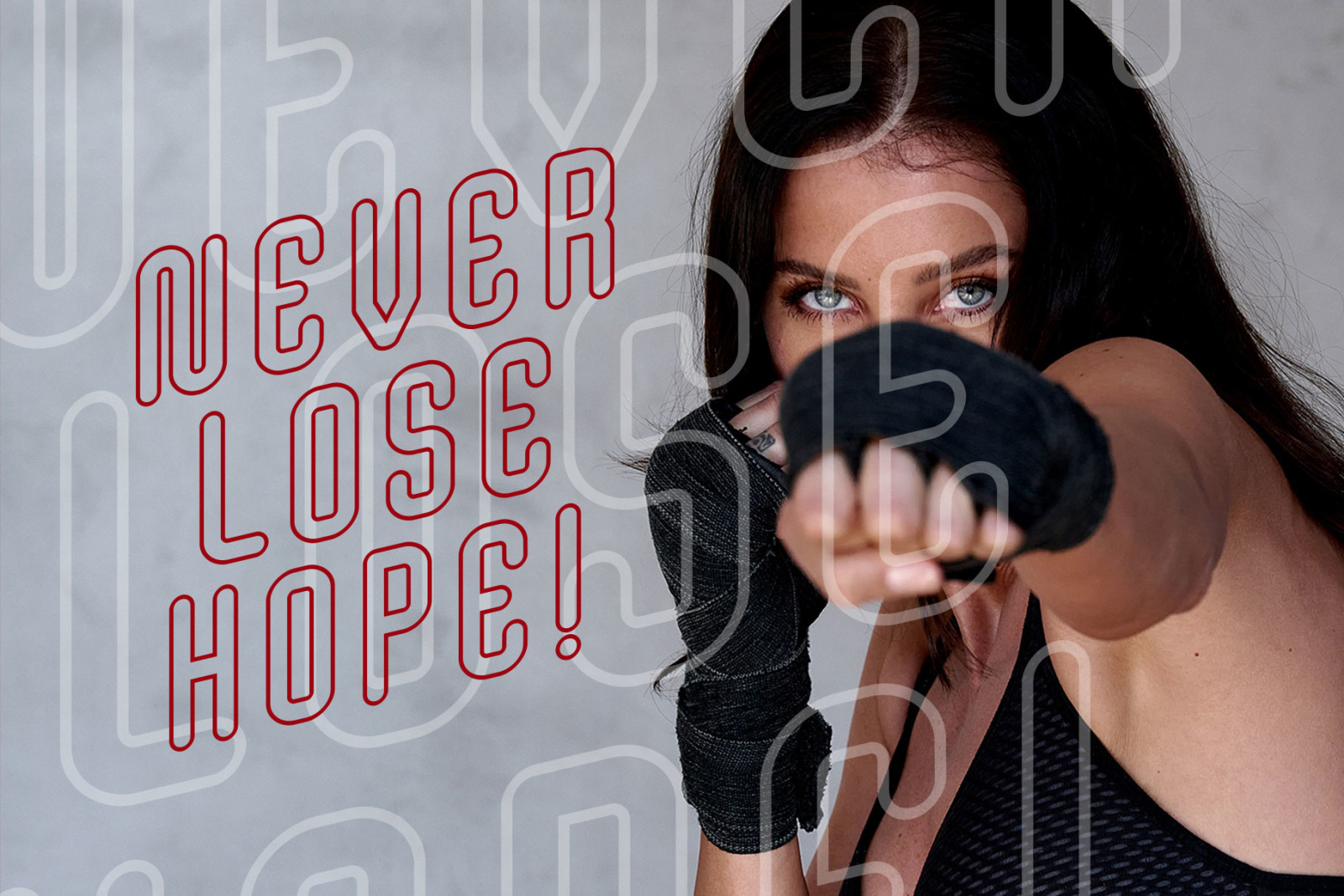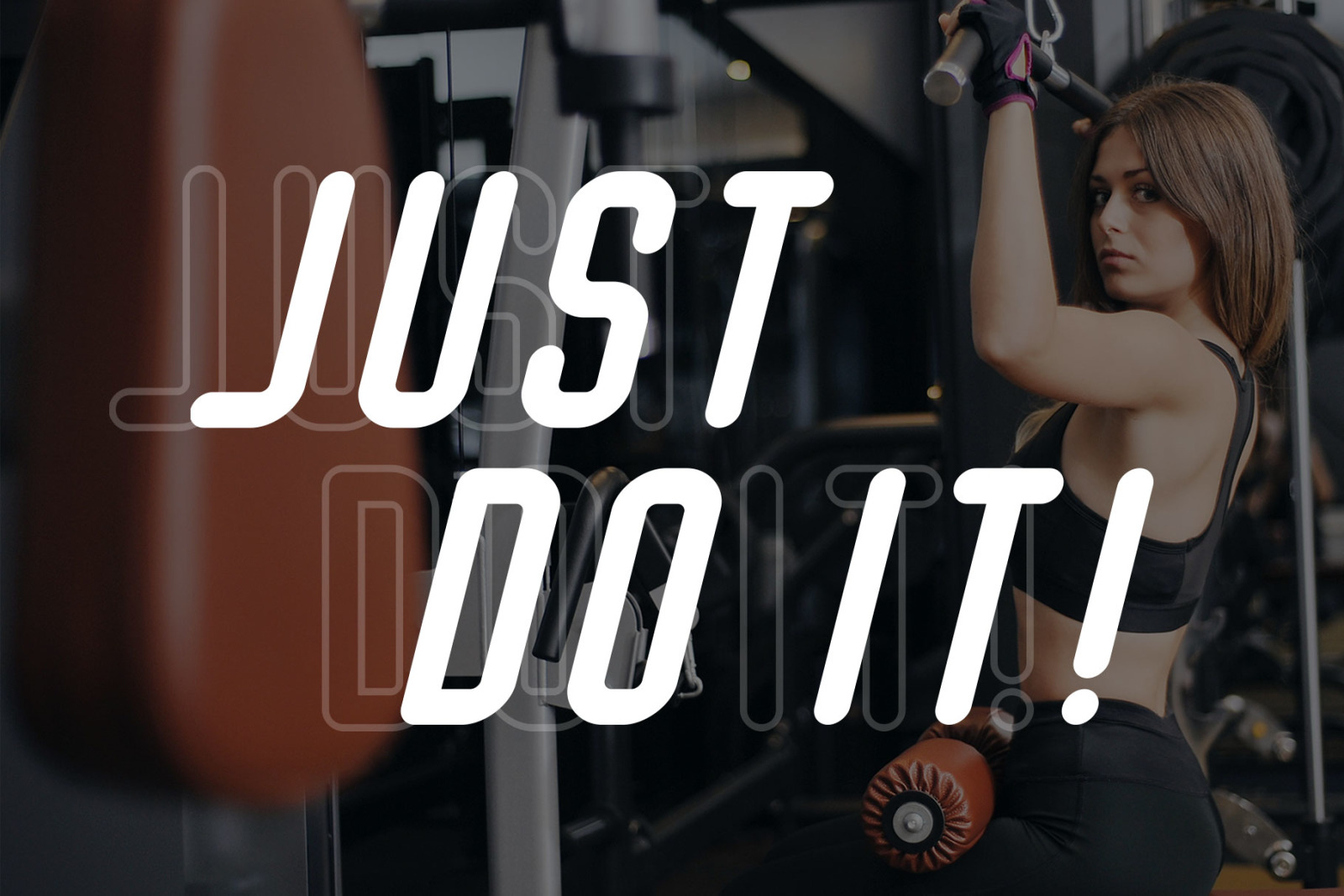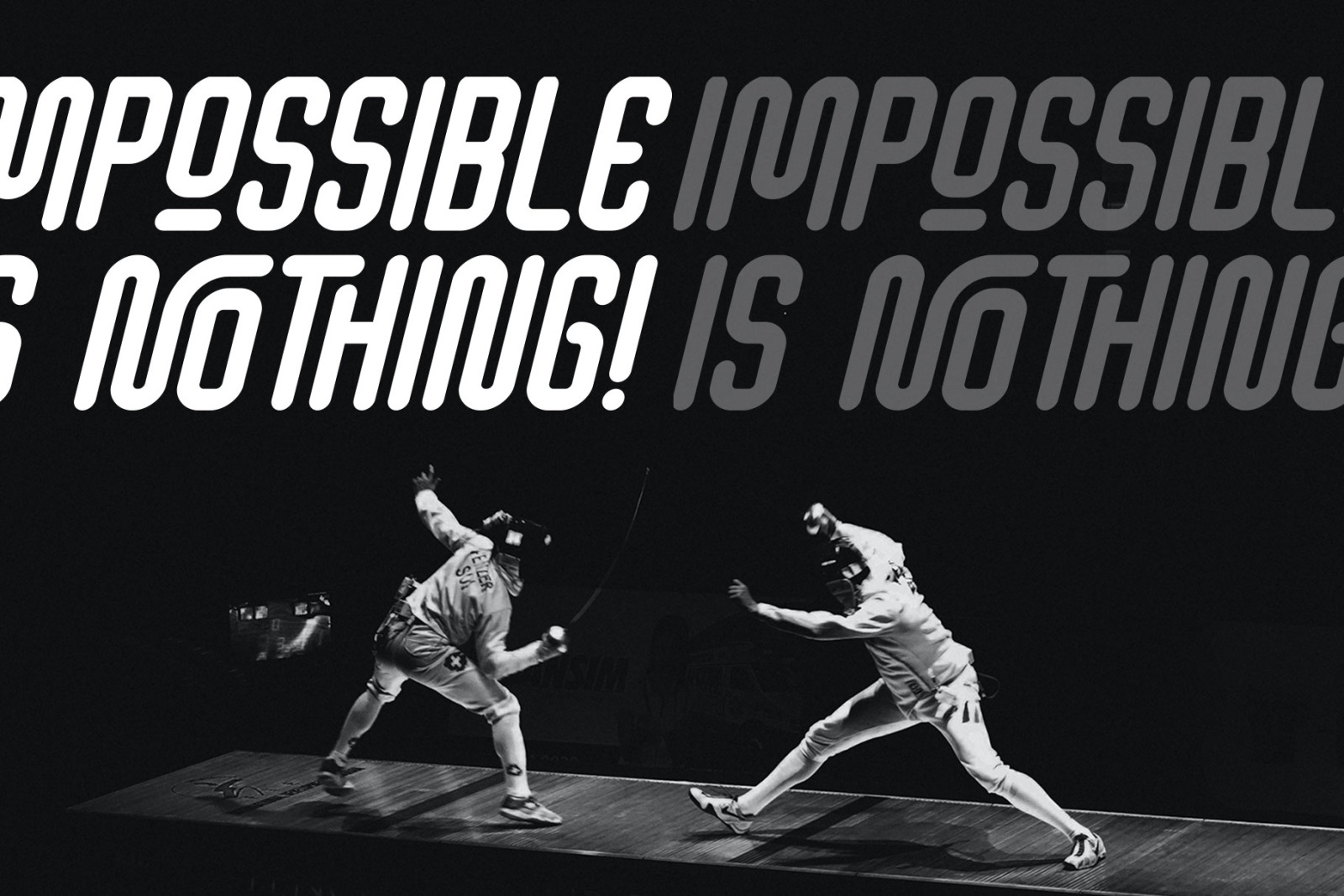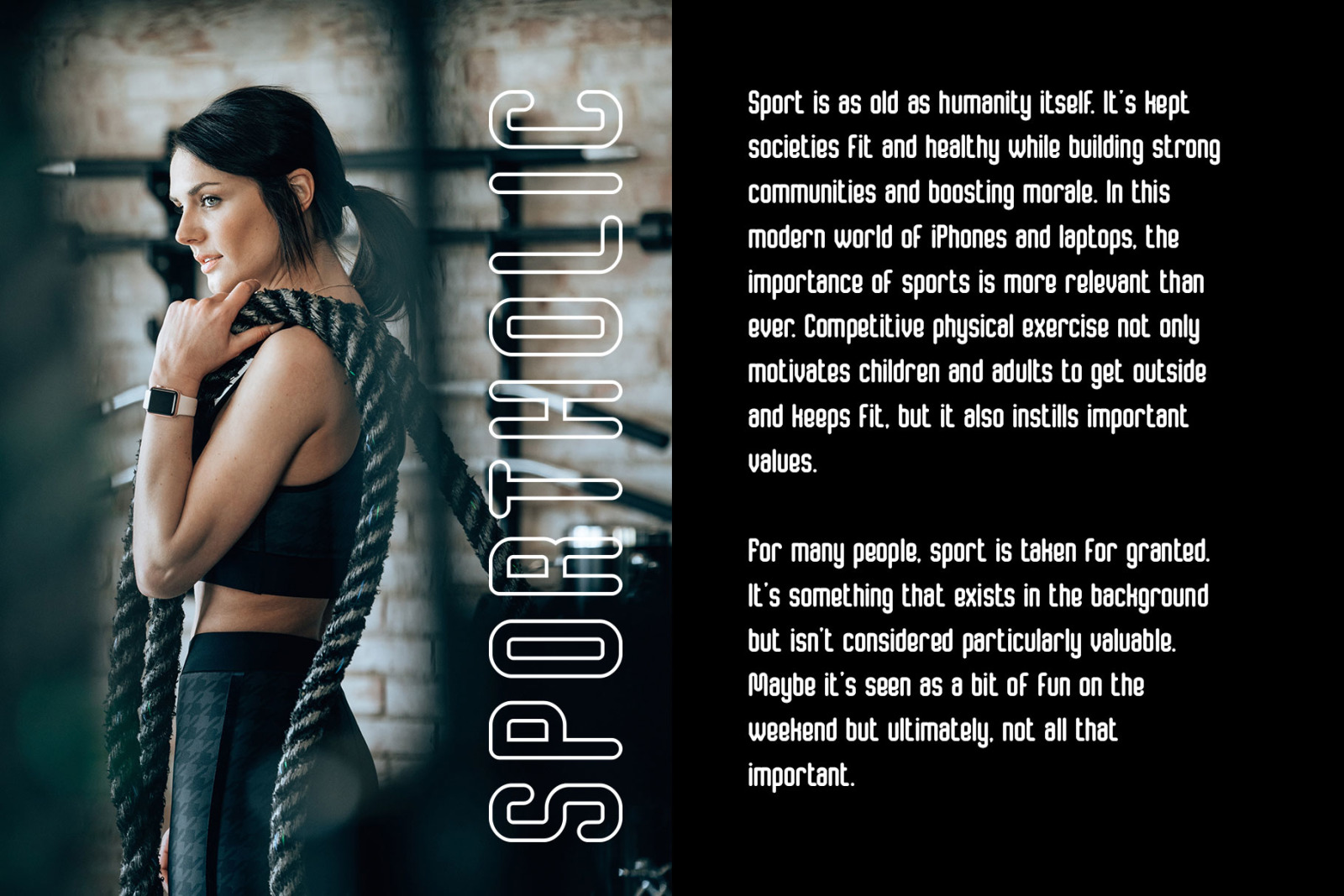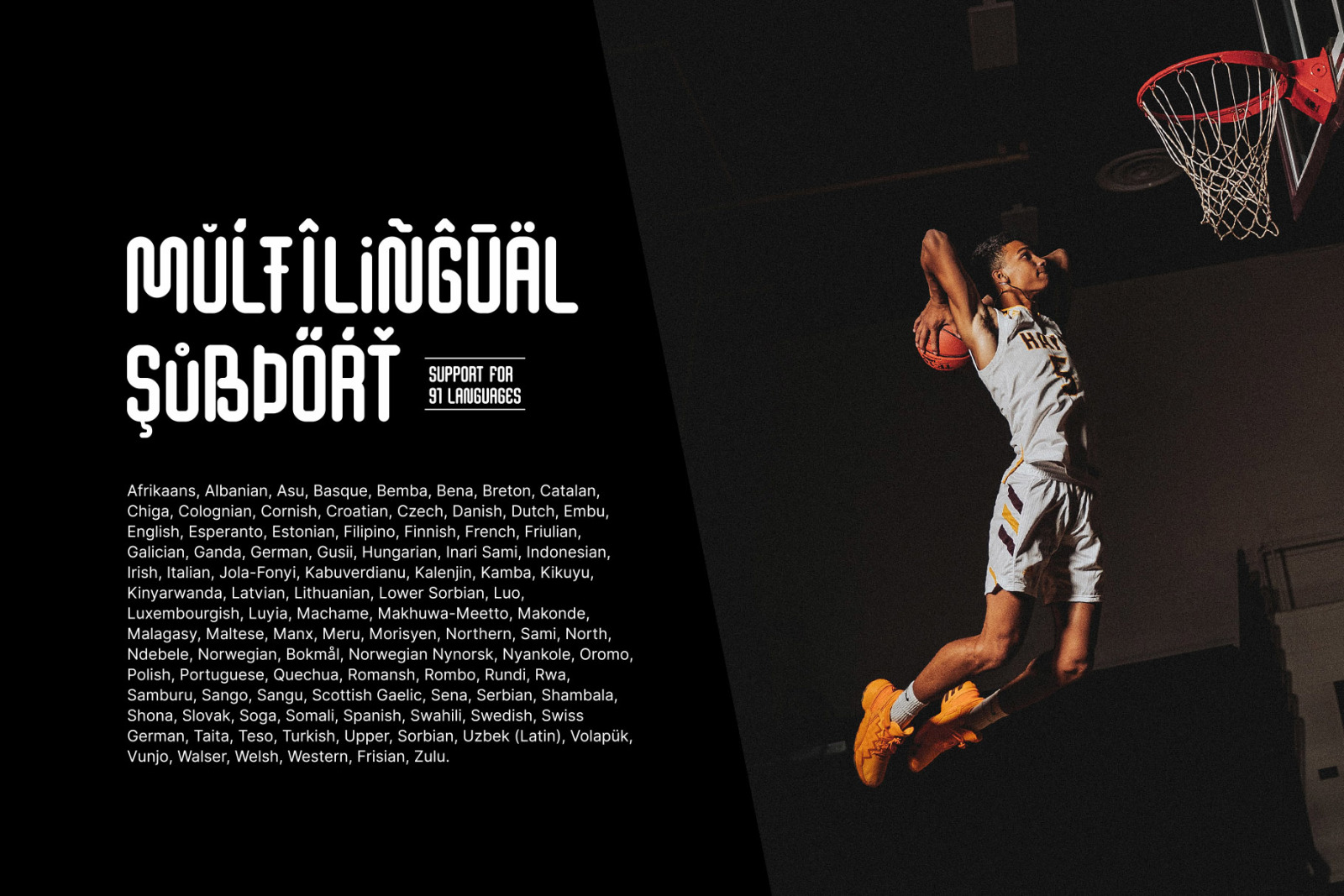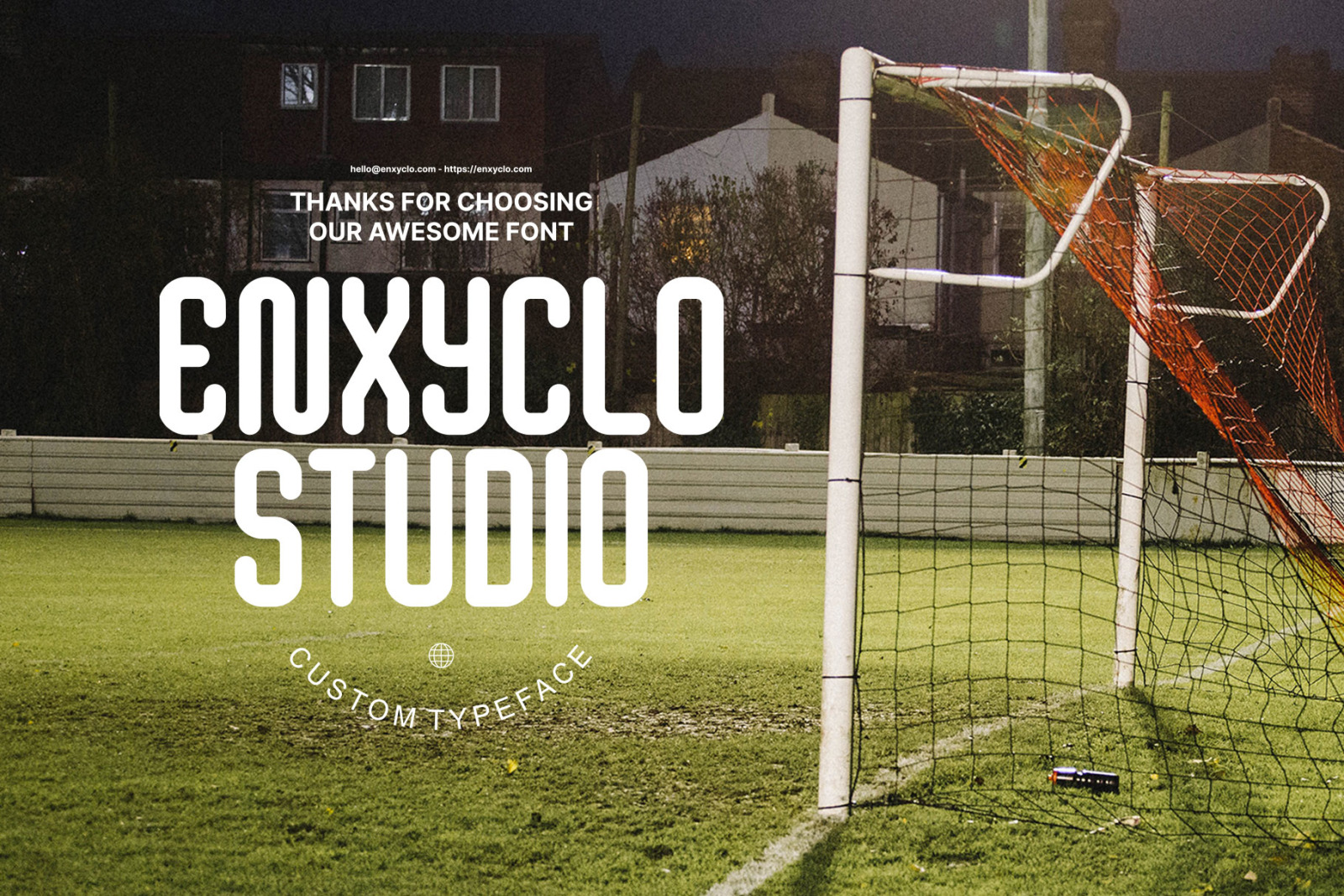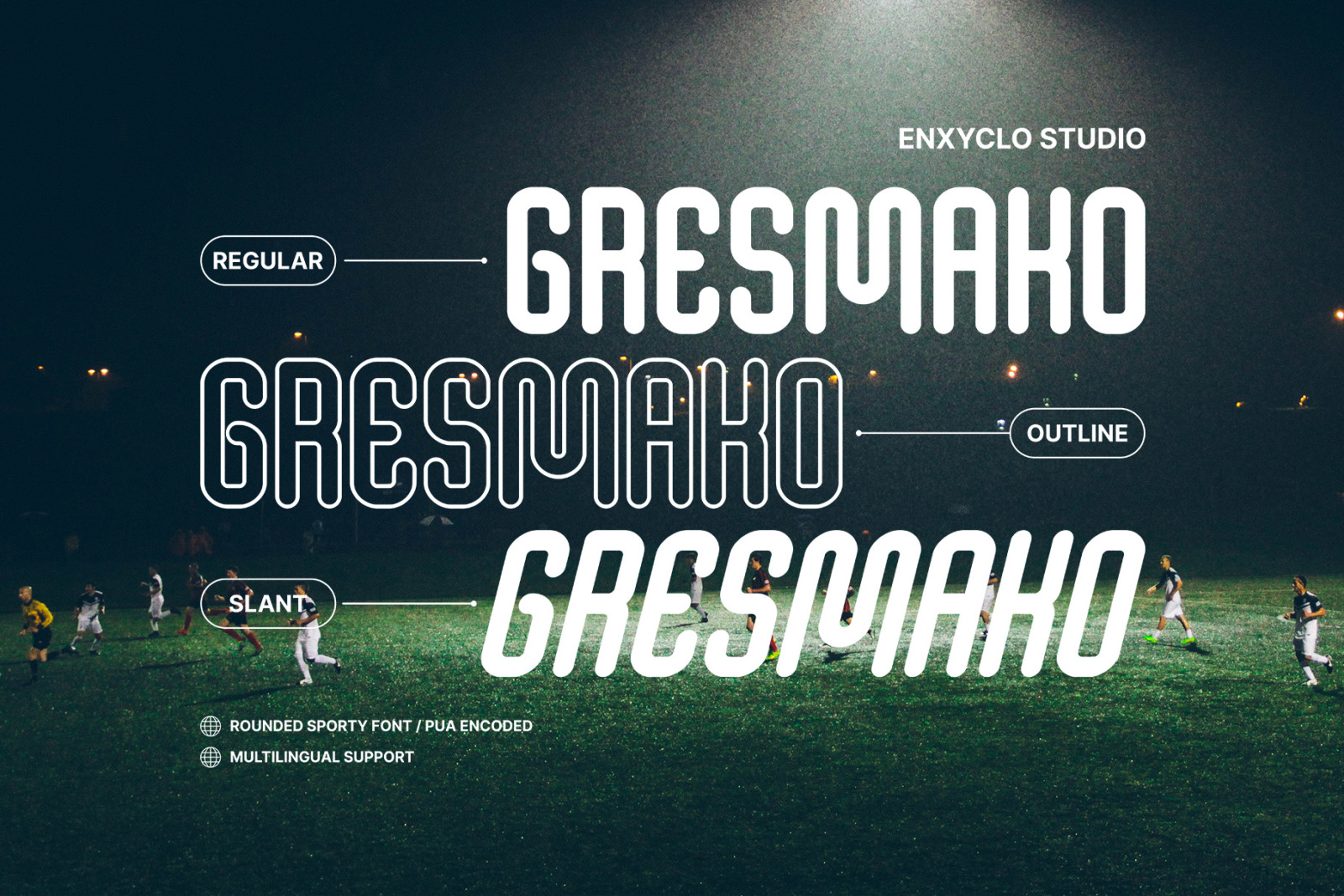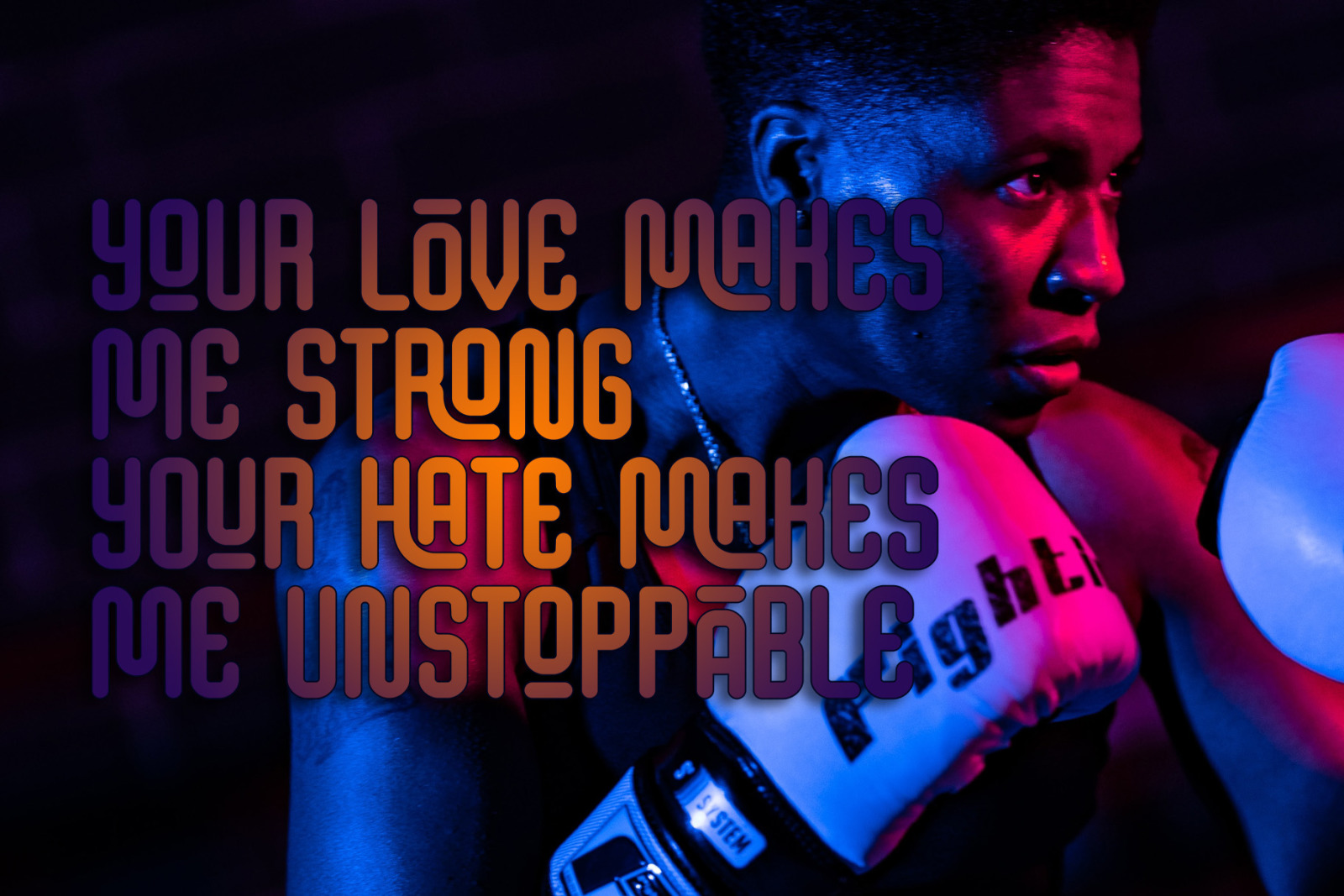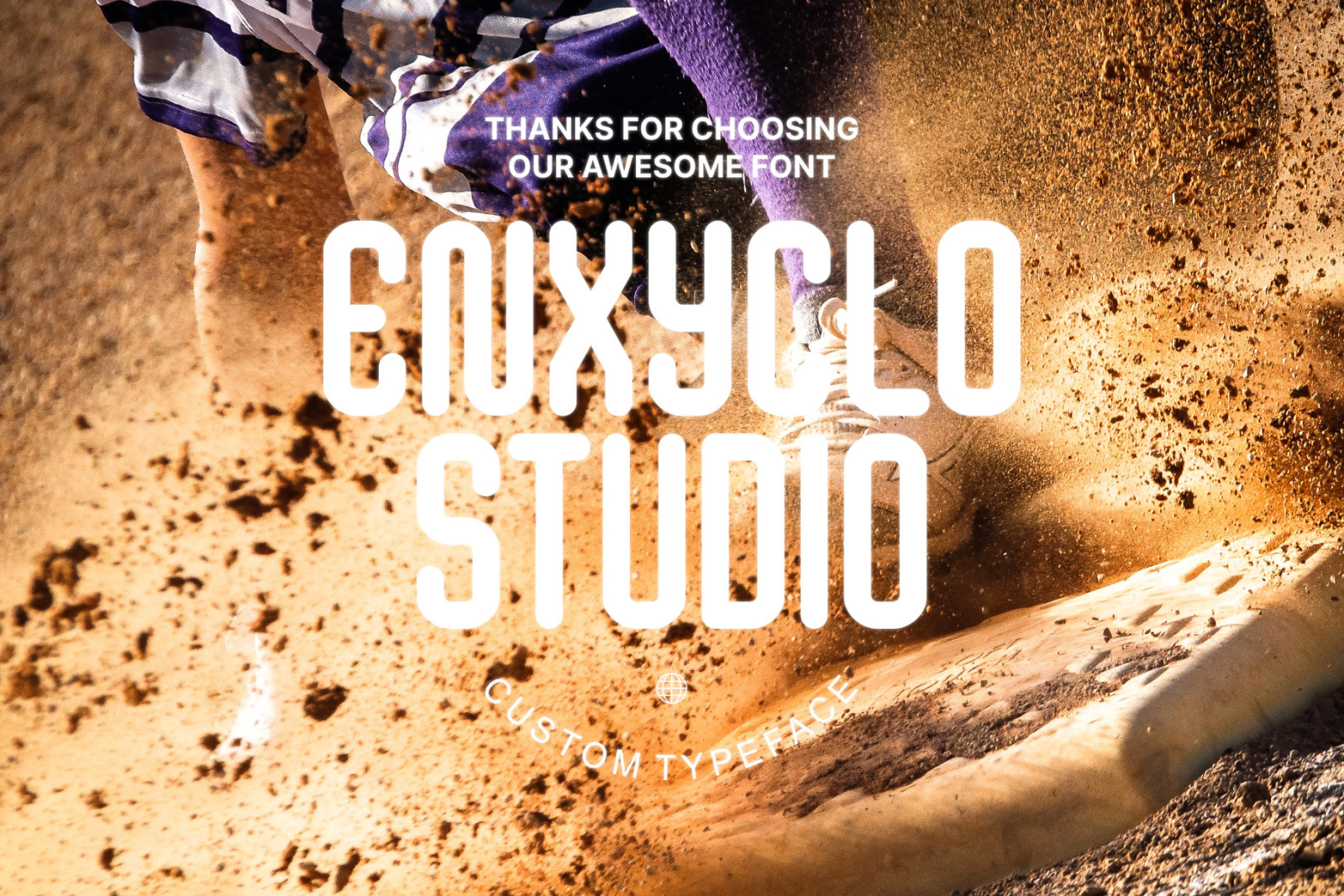
GRESMAKO - Rounded Sporty Modern Font
GRESMAKO is a rounded sporty font. It was purposely crafted to be used in large point sizes, although it doesn't lose its magic in small point sizes. With this rounded sporty typeface, you can be even more expressive in your design projects. It is perfect for headline, billboard, magazines, website, titles, poster, branding, and logos. With this beautiful font, absolutely you can make your project stand out from the rest. See the previews above to get some inspiration on how to use them.
FEATURES
- 3 Styles: Regular, Outline & Slant
- Contains 383 Glyphs for Each Style (Total: 1.149 Glyphs)
- Uppercase, Lowercase, Numeral, Punctuation & Symbol
- Multilingual Support. Support for 91 Languages: Afrikaans, Albanian, Asu, Basque, Bemba, Bena, Breton, Catalan, Chiga, Colognian, Cornish, Croatian, Czech, Danish, Dutch, Embu, English, Esperanto, Estonian, Filipino, Finnish, French, Friulian, Galician, Ganda, German, Gusii, Hungarian, Inari Sami, Indonesian, Irish, Italian, Jola-Fonyi, Kabuverdianu, Kalenjin, Kamba, Kikuyu, Kinyarwanda, Latvian, Lithuanian, Lower, Sorbian, Luo, Luxembourgish, Luyia, Machame, Makhuwa-Meetto, Makonde, Malagasy, Maltese, Manx, Meru, Morisyen, Northern Sami, North Ndebele, Norwegian, Bokmål, Norwegian, Nynorsk, Nyankole, Oromo, Polish, Portuguese, Quechua, Romansh, Rombo, Rundi, Rwa, Samburu, Sango, Sangu, Scottish, Gaelic, Sena, Serbian, Shambala, Shona, Slovak, Soga, Somali, Spanish, Swahili, Swedish, Swiss German, Taita, Teso, Turkish, Upper, Sorbian, Uzbek (Latin), Volapük, Vunjo, Walser, Welsh, Western, Frisian, Zulu.